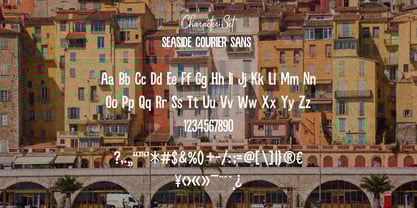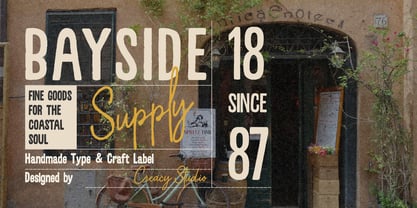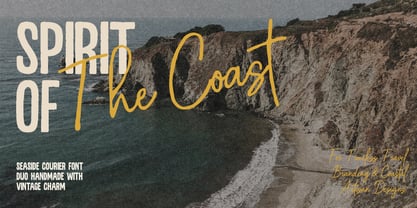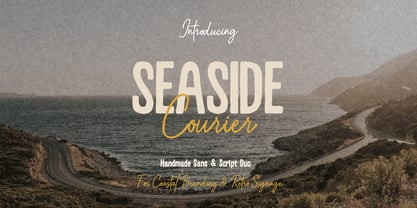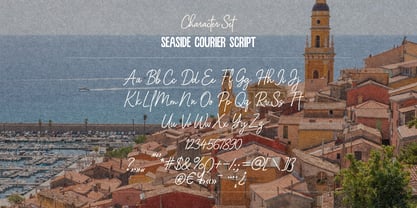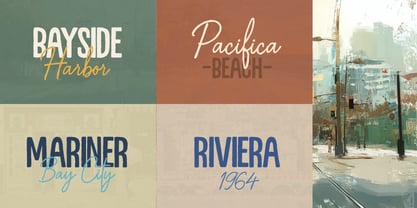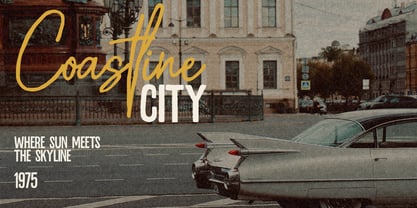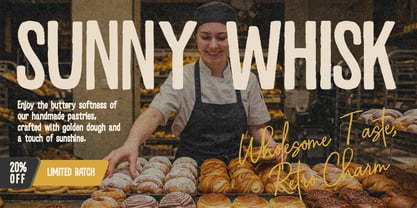
Seaside Courier
by Creacy Studio
The Seaside Courier Font Family was designed by Yosep Hendri Swandi and published by Creacy Studio. Seaside Courier contains 2 styles and family package options. More about this family
Seaside Courier is a handmade sans and script duo inspired by vintage coastal signage and nostalgic travel lettering. It blends the bold, rustic charm of hand-painted sans with the soft, flowing warmth of a casual script, creating a timeless balance between craftsmanship and elegance. Designed to evoke the feeling of seaside cafés, artisan shops, and sunlit postcards, this duo works beautifully for branding, packaging, posters, and retro lifestyle designs. With its natural imperfections and handcrafted rhythm, Seaside Courier brings an authentic human touch to modern creative projects.